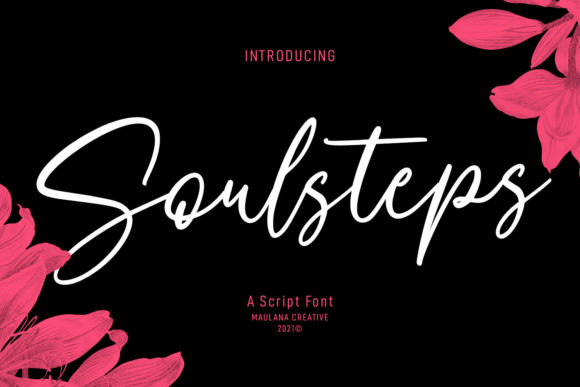
Soulsteps Font: Elevate Your Designs with Elegance and Class
In the world of typography, fonts play a crucial role in conveying the tone and personality of a design. Among the numerous fonts available, Soulsteps stands out as a lovely and cursive script font that exudes elegance and class. This font was particularly crafted for those who need a beautiful and refreshing look to their designs. In this article, we’ll explore the features, benefits, and uses of Soulsteps Font, and how it can elevate your designs to the next level.
What is Soulsteps Font?
Soulsteps Font is a carefully crafted cursive script font that embodies elegance, sophistication, and refinement. Its flowing lines, delicate curves, and precise lettering make it an ideal choice for designs that require a touch of luxury and poise. Whether you’re working on a branding project, wedding invitation, or social media graphics, Soulsteps Font is sure to make a lasting impression.
Key Features of Soulsteps Font
- Elegant and Cursive Design: Soulsteps Font boasts a beautiful, cursive script design that adds a touch of sophistication to any design.
- High-Quality Letters: The font features precise and high-quality letters, ensuring that your designs look crisp and professional.
- Easy to Read: Despite its elegant design, Soulsteps Font remains easy to read, making it perfect for body text and headings.
- Multilingual Support: The font supports multiple languages, allowing you to use it for a wide range of projects.
Benefits of Using Soulsteps Font
Using Soulsteps Font in your designs offers numerous benefits, including:
- Enhanced Elegance: The font’s elegant design adds a touch of sophistication to your designs, making them stand out from the crowd.
- Improved Readability: Soulsteps Font’s clear and precise letters ensure that your text is easy to read, even at smaller font sizes.
- Versatility: The font’s multilingual support and commercial license make it a versatile choice for a wide range of projects.
- Time-Saving: With Soulsteps Font, you can create professional-looking designs quickly and efficiently, saving you time and effort.
Uses of Soulsteps Font
Soulsteps Font is a versatile font that can be used for various design projects, including:
- Branding and Logo Design: The font’s elegant design makes it perfect for branding and logo design projects that require a touch of sophistication.
- Wedding Invitations and Stationery: Soulsteps Font is an excellent choice for wedding invitations, stationery, and other paper goods that require a elegant and refined look.
- Social Media Graphics: The font’s clear and precise letters make it suitable for social media graphics, such as Facebook posts, Instagram stories, and Twitter headers.
- Packaging Design: Soulsteps Font can be used for packaging design projects that require a touch of elegance and sophistication.
Tips for Using Soulsteps Font
To get the most out of Soulsteps Font, follow these tips:
- Use it for Headings and Titles: Soulsteps Font is perfect for headings and titles, where its elegant design can make a lasting impression.
- Pair it with a Sans-Serif Font: Pair Soulsteps Font with a sans-serif font for body text to create a beautiful contrast and visual hierarchy.
- Experiment with Font Sizes: Experiment with different font sizes to create visual interest and emphasize important information.
- Use it for Digital and Print Projects: Soulsteps Font can be used for both digital and print projects, making it a versatile choice for designers.